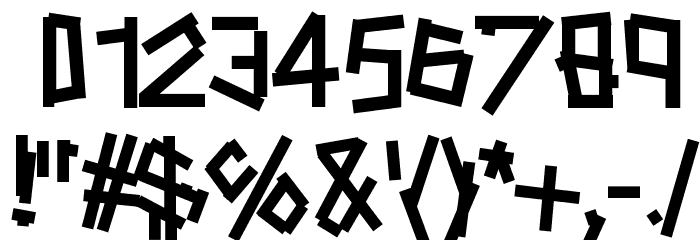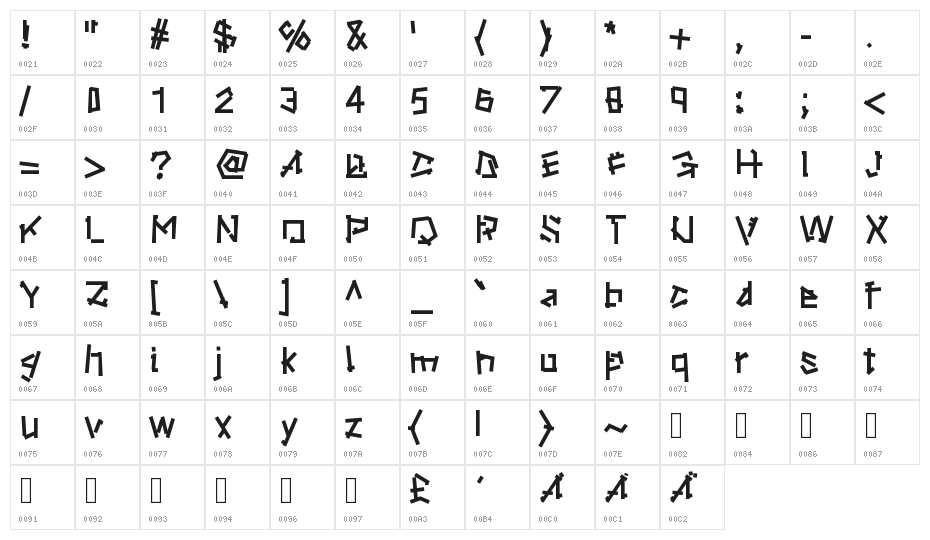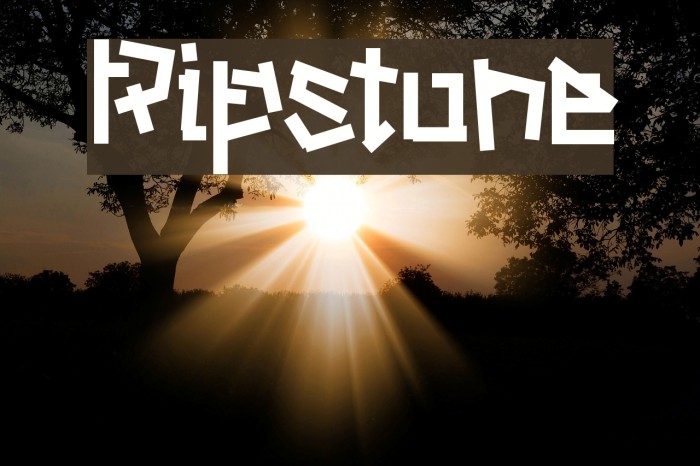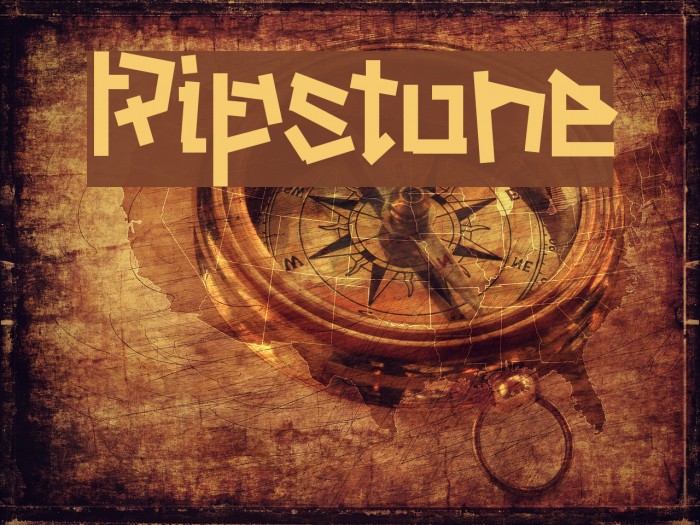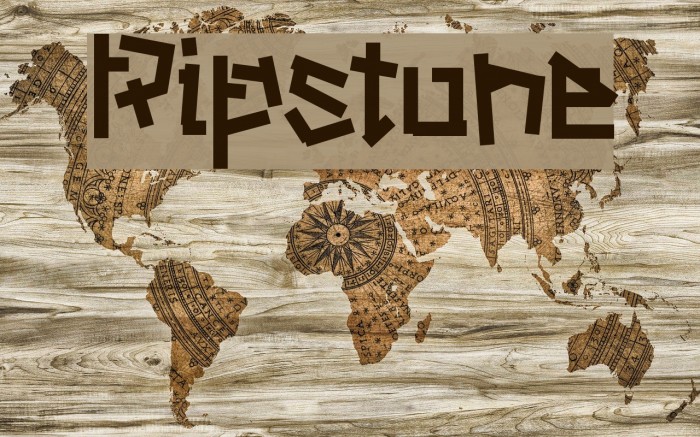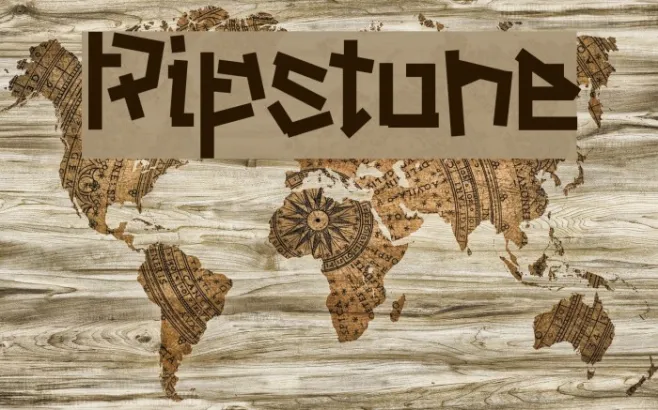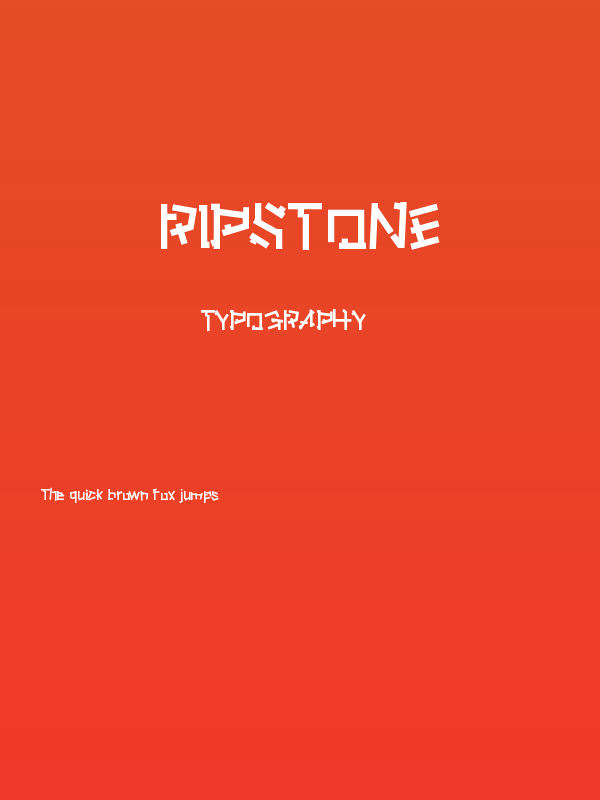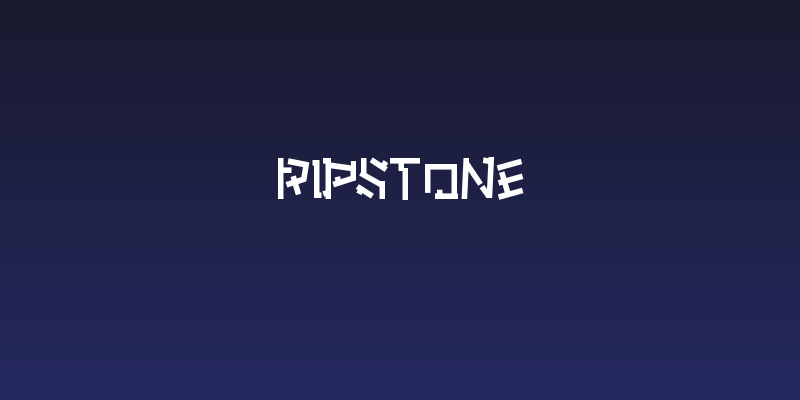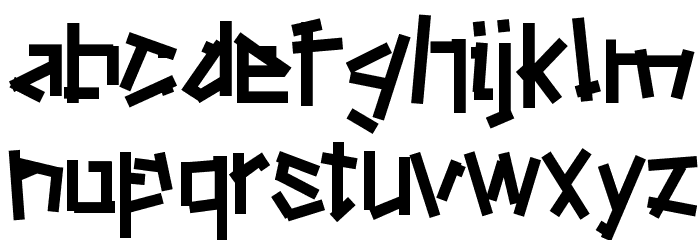
Ripstone Font
Ripstone Description
This font features a bold and edgy design with angular, geometric shapes that give it a modern and rebellious feel. The characters are constructed with sharp, jagged edges and varying line thicknesses, creating a sense of movement and energy. The uppercase and lowercase letters maintain a consistent style, while the numerals and special characters complement the overall aesthetic. This font's unique style makes it stand out, ideal for projects that require a strong visual impact.
| Proposed Projects | Ideal for music album covers, video game titles, streetwear branding, and edgy poster designs. |